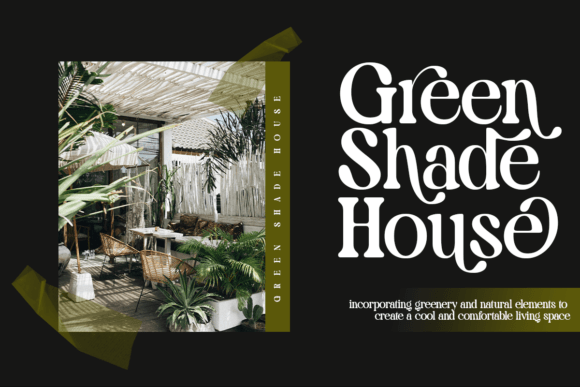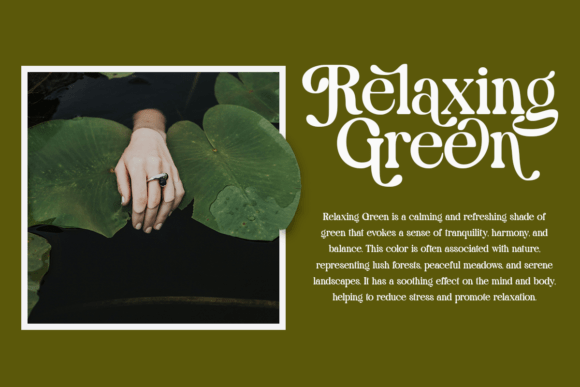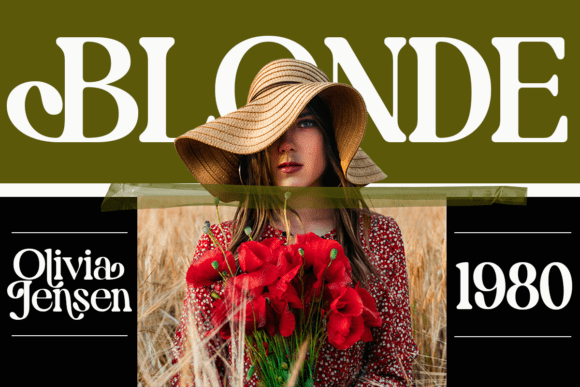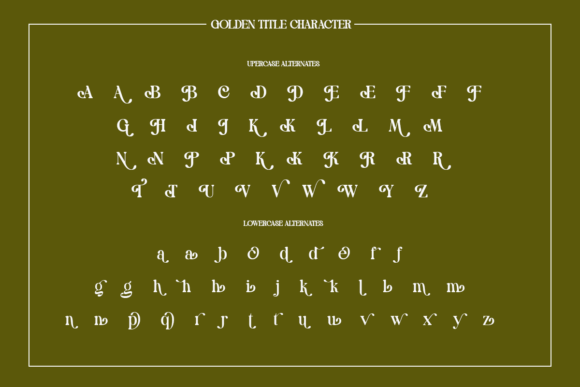
Where Creativity Meets Sophistication
Imagine you’re holding a luxurious fashion magazine, flipping through its pages, and being captivated by a stunning headline that seems to leap off the page. The moment you see it, you know you’re in for a treat – the typography is not just setting the tone, but also elevating the entire experience. That’s where the Golden Title Font comes in – a masterfully crafted display serif font designed to make a lasting impression.
With its sculptural letterforms and distinctive alternates, the Golden Title Font is a game-changer for designers seeking to add elegance and character to their work. Whether you’re working on high-end branding, fashion-forward layouts, or upscale packaging, this font is sure to bring precision and flair to your projects.
- Font Family: Golden Title Font is a unique, custom-designed font family, making it ideal for titles and headings.
- Character Set: The font family includes a wide range of characters, including Latin, Cyrillic, and Greek alphabets, making it suitable for multilingual projects.
- Unique Characteristics: The font features a distinctive golden hue, giving it a luxurious and premium feel, perfect for high-end branding and design projects.
Designer Review: Golden Title Font
Overall, I think the Golden Title Font is a decent choice for projects that need a touch of luxury and sophistication. ✨ The font’s elegant curves and refined details make it perfect for creating a sense of grandeur, especially in titles and headings.
Here are some of the things that work well with the Golden Title Font:
- Unique and eye-catching style ✨
- Great for creating a sense of luxury and sophistication
- Works well in both digital and print formats
- Compatible with a wide range of devices and browsers
- May be too flashy for more subdued designs ⚠️
- Not suitable for body text, as it can be difficult to read at smaller sizes
- Some users may find it too ornate or over-the-top
Overall, I would recommend the Golden Title Font for projects that need a bold and eye-catching title font. However, it’s essential to use it judiciously and balance it with more subdued fonts to avoid overwhelming the design.
Tips: Experiment with different font sizes and colors to create a visually appealing effect. You can also combine the Golden Title Font with other fonts to create a unique look.
Tips: Use the Golden Title Font to create eye-catching headlines and titles. You can also use it to add a touch of elegance to your designs.
Tips: Use the Golden Title Font to create attention-grabbing headings and titles. You can also use it to add a touch of sophistication to your presentations and documents.
The Golden Title Font is perfect for:
- Creating eye-catching headlines and titles.
- Adding a touch of elegance to your
Q: Is Golden Title Font suitable for use in digital applications?
Yes, Golden Title Font is designed to be highly legible and effective in digital applications, including websites, social media, and mobile apps. The font is optimized for use on screens and is designed to be clear and easy to read at a range of sizes and resolutions.